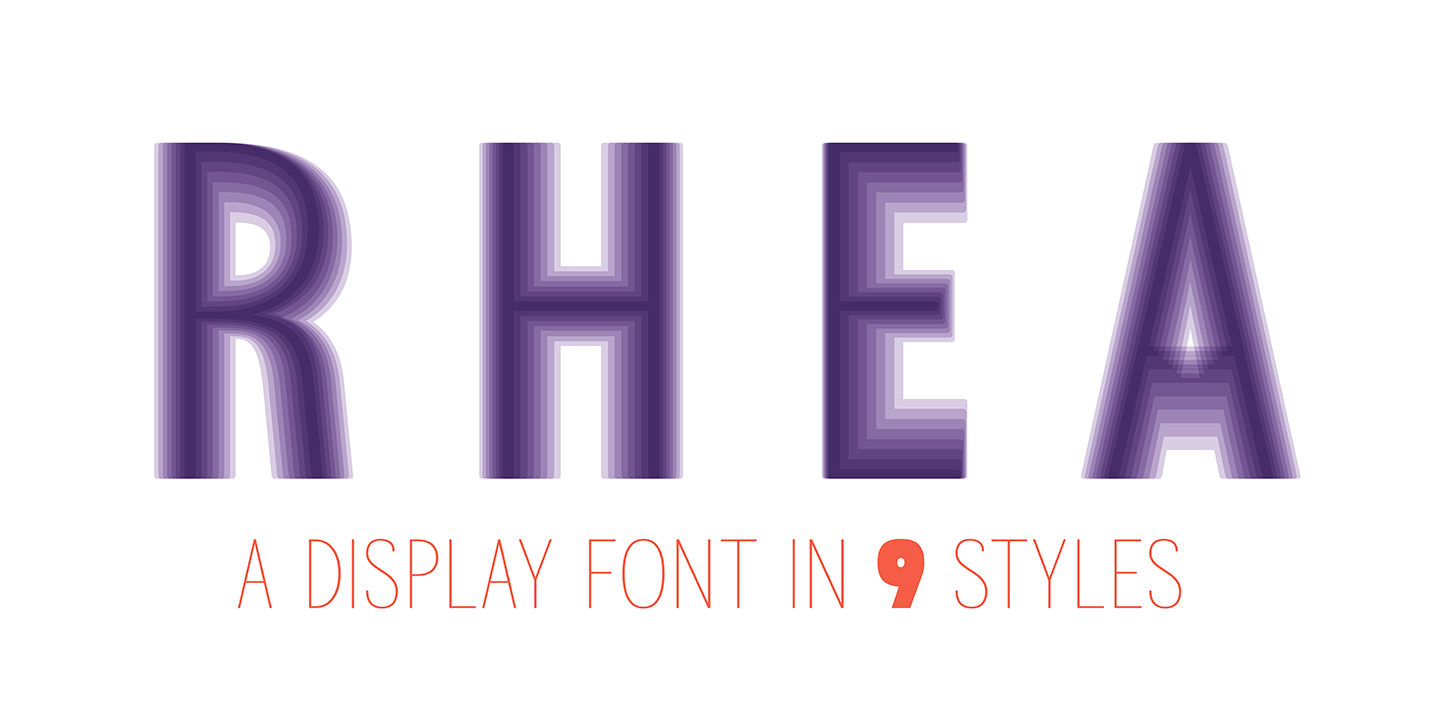
Rhea Font is a captivating and modern typeface, offering a blend of contemporary aesthetics and excellent readability. It's an ideal choice for a variety of digital and print applications where a clean, sophisticated, and impactful look is desired. Imagine it used in the branding for a tech startup, the sleek interface of a mobile app, the minimalist design of a photography portfolio website, or the compelling headlines of a fashion magazine. Its versatility also makes it perfect for professional presentations, crisp infographics, and elegant product packaging, ensuring your message is delivered with clarity and style.
What makes Rhea Font truly exciting is its balanced proportions and subtle design nuances that give it a unique character. It often strikes a perfect harmony between geometric precision and humanistic warmth, ensuring it feels both modern and approachable. This font doesn't just look good; it's designed for optimal legibility, making it effective for both large display text and smaller body copy. Its ability to convey a sense of innovation and clarity makes it a powerful tool for designers looking to create a strong visual identity.
The Rhea Font family typically offers a comprehensive suite of weights and styles to cater to diverse design needs. You'll often find Rhea Font Regular, Rhea Font Italic, and Rhea Font Bold, providing essential variations for typographic hierarchy. Depending on its specific design, it might also include lighter weights like Rhea Font Thin or more robust options like Rhea Font Black, along with corresponding italic versions. This extensive range empowers designers to achieve precise visual effects and maintain consistency across all their creative endeavors. Explore the modern appeal of Rhea Font Free Download for your next project.